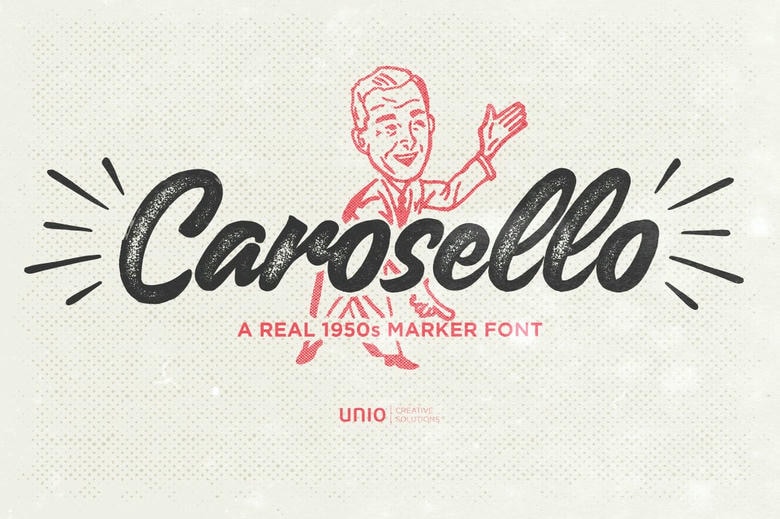
Carosello Font
Carosello is a script font inspired by vintage designs. This font was created to display common hand-written imperfections. Our biggest holiday wish is to make our freebies as big and useful as possible. It will be a huge helper to anyone who’s into vintage style.
Carosello Handwritten Script Font